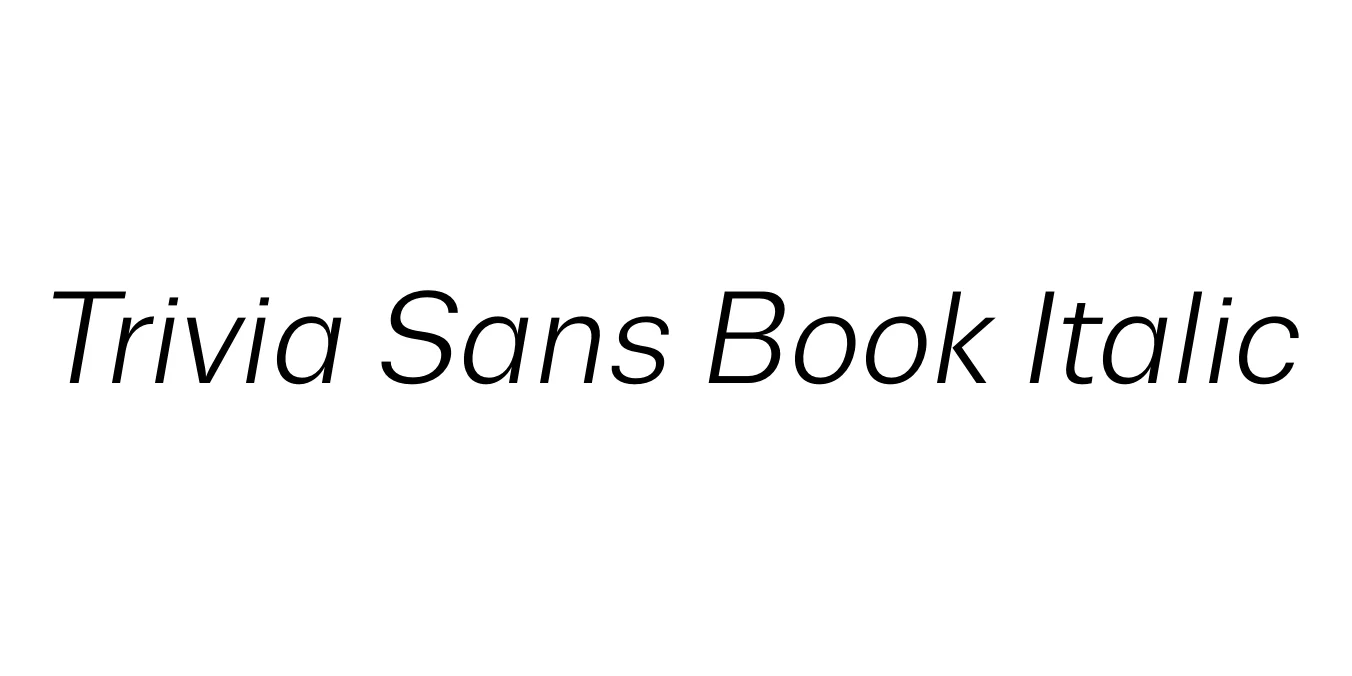
Trivia Sans Book Italic
Designed by František Štorm
Trivia Sans Book Italic is a sophisticated component of the Trivia superfamily, a comprehensive typographic system designed by František Štorm in 2012. This font was engineered to deliver a neutral yet distinct aesthetic, balancing the rigid structure of geometric sans-serifs with the organic warmth of humanist influences. The Book Italic weight provides a fluid, rhythmic slant that maintains the same optical weight as the Roman version, ensuring consistent texture across a page.
Technically, the font features a large x-height and open counters, which are essential for high-performance legibility in demanding environments. Its design heritage draws from early 20th-century Grotesque styles but adds a contemporary sharpness and precision. This makes it an ideal choice for complex information design and high-end editorial projects where clarity, elegance, and professional hierarchy are required.
Trivia Sans Book Italic Best Uses
Ideal for long-form body copy in magazines, journals, and high-end books.
Perfect for creating a professional and contemporary visual identity across business documents.
Highly effective for digital interfaces where readability and a modern feel are prioritized.